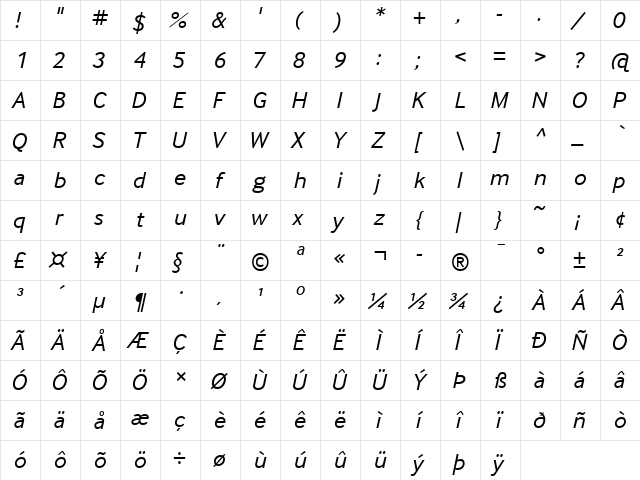
InterFace DaMa Italic
| Foundry | Dalton Maag Ltd |
| Designer | Bruno Maag |
Design Context for InterFace DaMa Typeface
InterFace DaMa offers clean, dependable letterforms without strong stylistic allegiance, making it a practical choice for designers who need flexibility. The slanted form adds forward momentum and visual energy.
Pro Tip: Try InterFace DaMa for annotation and caption copy alongside an upright companion — the contrast in angle creates a dynamic but ordered typographic system.